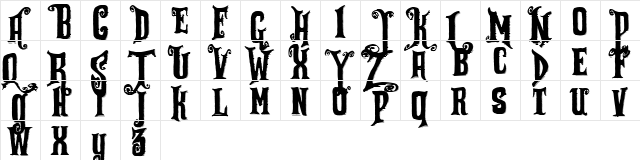
Zu Kabarett Shad Regular
Design Context for Zu Kabarett Shad Typeface
Zu Kabarett Shad is a composed and adaptable typeface that performs quietly and consistently across a wide range of design contexts.
Pro Tip: Use Zu Kabarett Shad in both headline and body roles to test its range before committing to a single application.